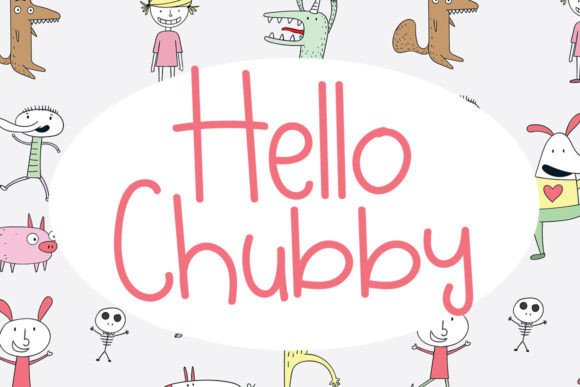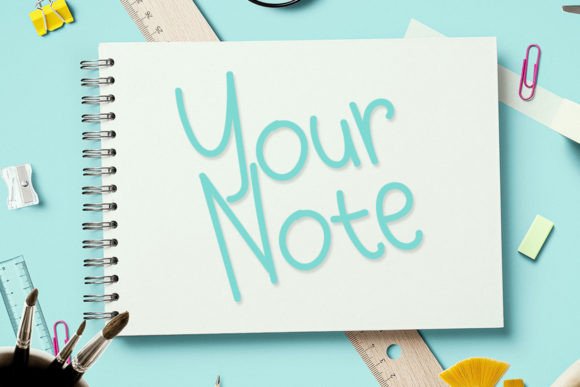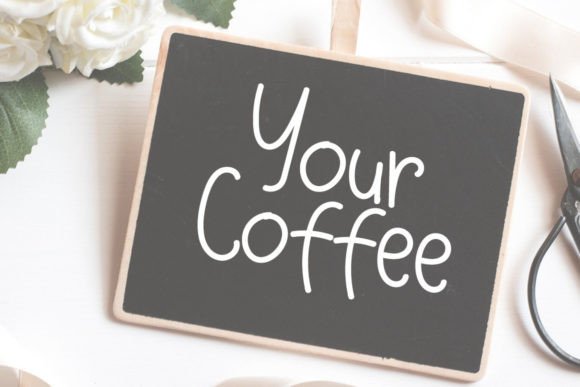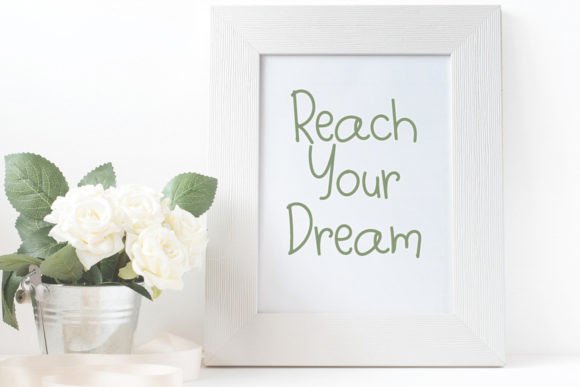
Hello Chubby Font
About Hello Chubby Font
Introducing Hello Chubby, a beautiful and sweet font that brings a fresh, clean, and elegant touch to your projects. Designed with versatility in mind, this font looks amazing in a variety of projects, whether they are formal or informal. Hello Chubby adds an incredibly joyful touch to your designs, aiming to simplify your design process and make your business or creative projects look more beautiful.
The fresh and clean aesthetic of Hello Chubby makes it adaptable to a wide range of design contexts. It seamlessly integrates into formal business materials, informal creative projects, and everything in between. The font brings a sense of beauty and sophistication to your text.
Hello Chubby’s joyful touch adds a hint of positivity and vibrancy to your designs. Beyond being a font, it serves as a design element that enhances the overall visual appeal, allowing your projects to stand out with elegance and charm.
Designed for simplicity, Hello Chubby is easy to incorporate into your designs, providing a clean and streamlined look. Whether used for branding, marketing materials, or creative projects, this font adds a touch of beauty that captures attention.
In summary, Hello Chubby is a font crafted to elevate your designs with its beauty and simplicity. Download Hello Chubby now and explore how it can bring a fresh and elegant touch to your business or creative projects. With its joyful and versatile style, Hello Chubby is poised to make your designs look more beautiful and engaging.